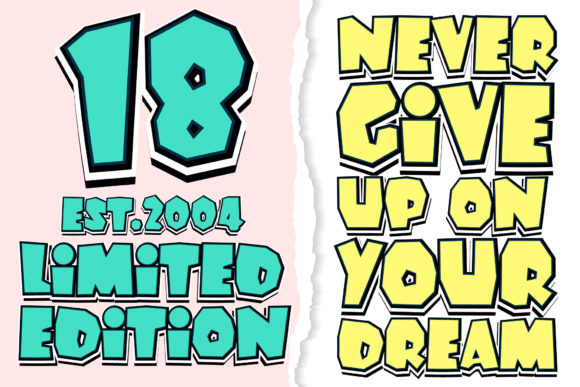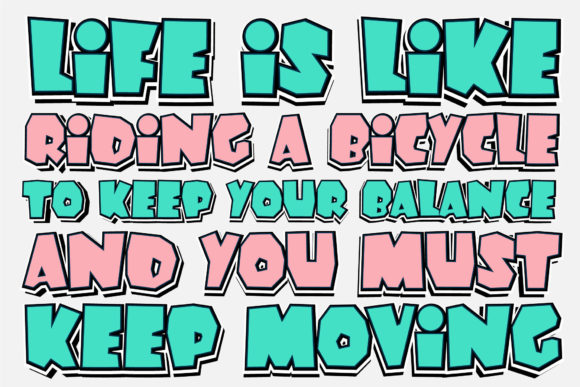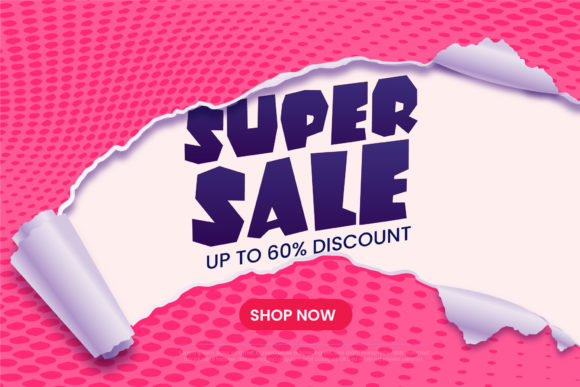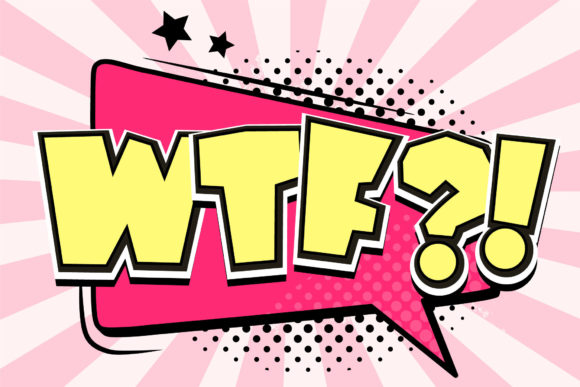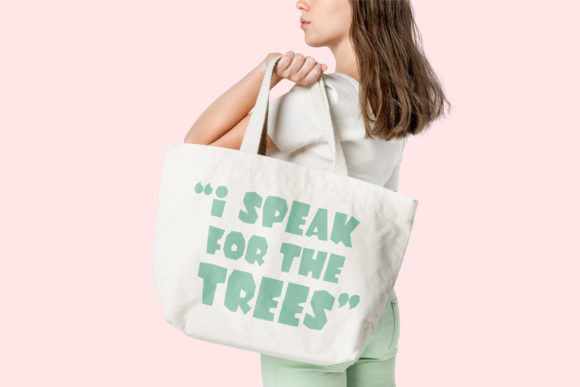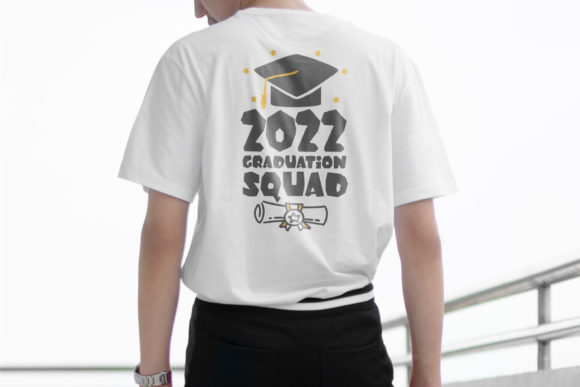
Introduction to Mister Cartoon Font Font
Fonts play a crucial role in design, and the Mister Cartoon Font font is a typeface that brings both character and versatility to any project. Whether you’re working on a branding project, a website, or a print design, the Mister Cartoon Font font offers a unique style that can elevate your work.
| 📌 Font Name | Mister Cartoon Font |
Mister Cartoon is a fun and thick lettered display font.
It is great for delivering any message with confidence, authenticity and charm Use it for cartoons, magazine covers, games or pretty much anything that requires a jolly touch.
Key Features of Mister Cartoon Font Font
Why Choose Mister Cartoon Font Font?
The Mister Cartoon Font font is more than just a typeface – it’s a design tool that helps you communicate your message with style and clarity. Its unique character set and versatile design make it suitable for a wide range of applications, from elegant invitations to bold headlines.
With its carefully crafted letterforms and balanced proportions, the Mister Cartoon Font font ensures readability and visual appeal across all mediums.
What makes Mister Cartoon Font font special?
The Mister Cartoon Font font stands out with its unique design, exceptional readability, and versatility across various design applications.